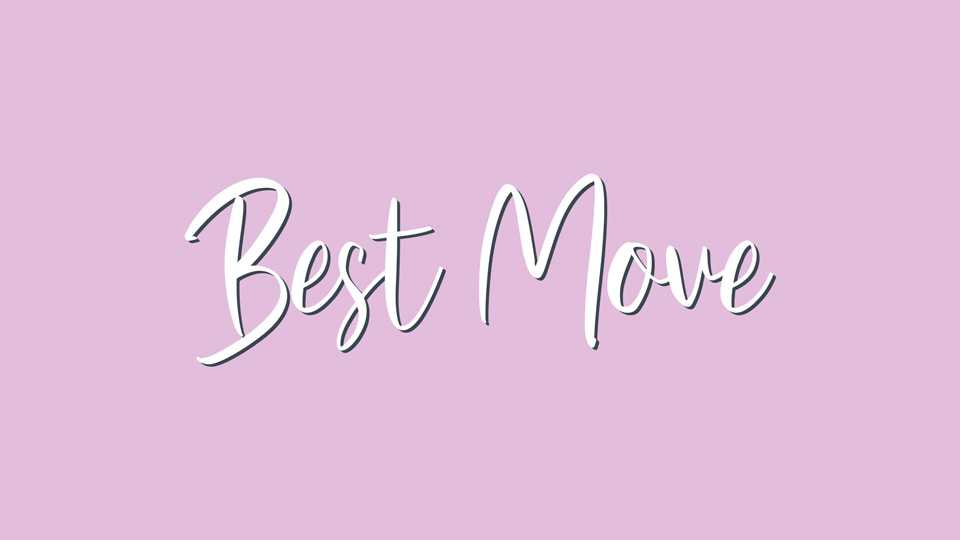
Download Best Move font, a hand-drawn typeface that brings a playful and approachable touch to your designs. This endearing font captures the spirit of casual handwriting, as if each letter were sketched with a pen by a whimsical artist.